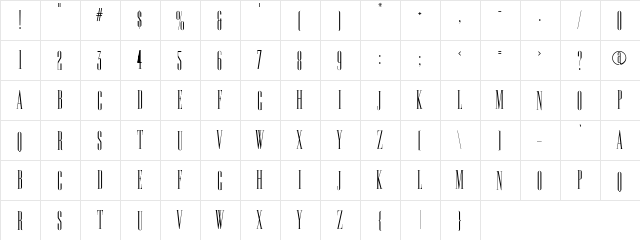
Kuzma Regular
Design Context for Kuzma Typeface
Kuzma takes a measured approach to typography — its balanced proportions and neutral character make it a reliable workhorse for both digital and print work.